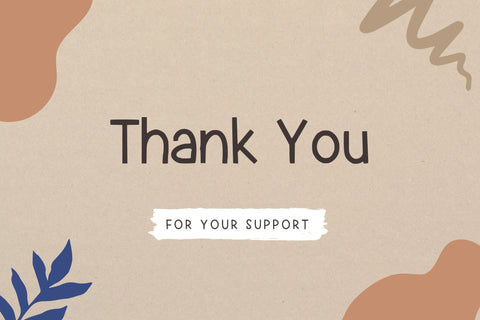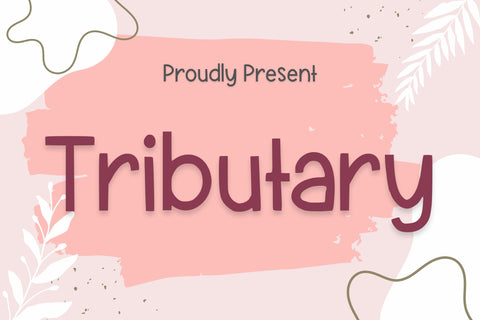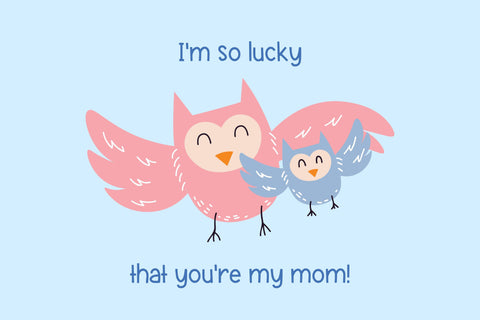
Tributary Handwriting Font
Tributary is a handwritten typeface. Perfect for display, mockup, posters, quotes, branding, business card, greeting card, crafting needs, logo, logotype, badges, emblem, header, tittle, merchandise, packaging, and many more.
- Character set A-z
- Support multilanguage glyphs